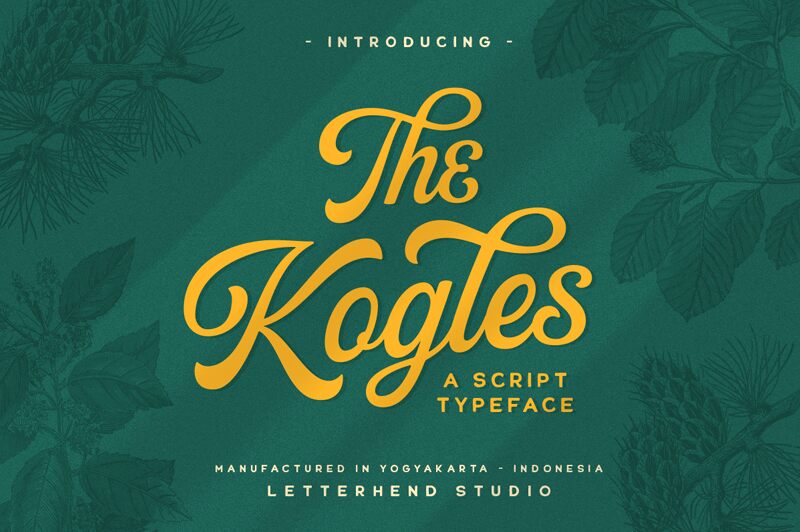
The Kogles Script, designed by Bukancumaa, is a charming handwritten font that adds a touch of elegance to any project. With its semi-light weight, this font exudes a delicate and graceful vibe. Perfect for wedding invitations, greeting cards, and personalized branding projects, The Kogles Script brings a sense of authenticity and uniqueness to your designs. Its flowing strokes and smooth curves make it particularly suitable for romantic themes or artisanal concepts. Let your creativity soar with The Kogles Script and watch as it effortlessly enhances your next creative endeavor.
The Kogles Script DEMO